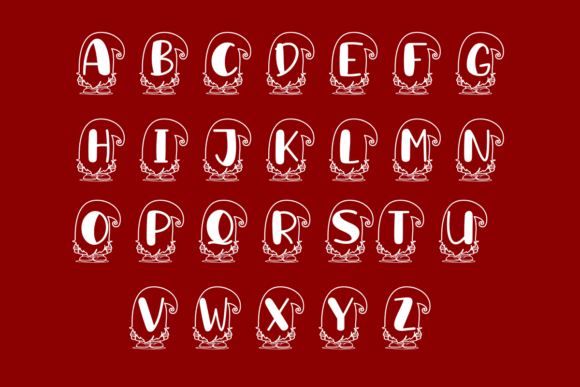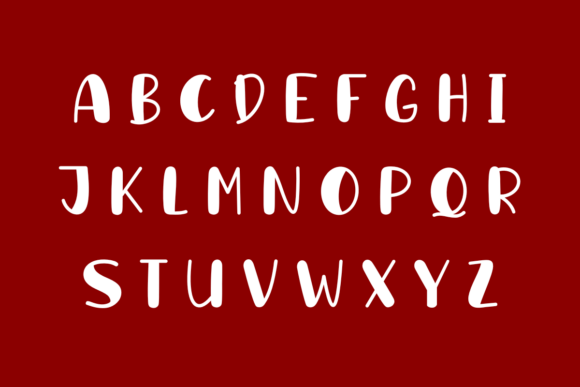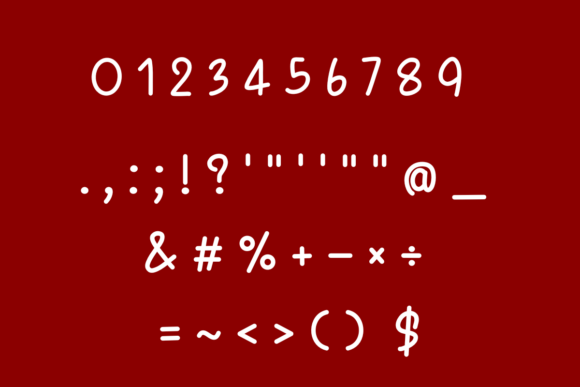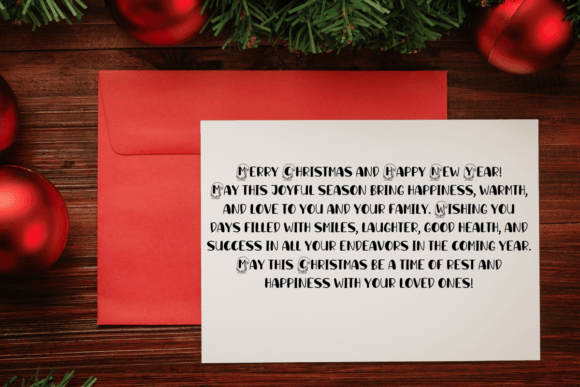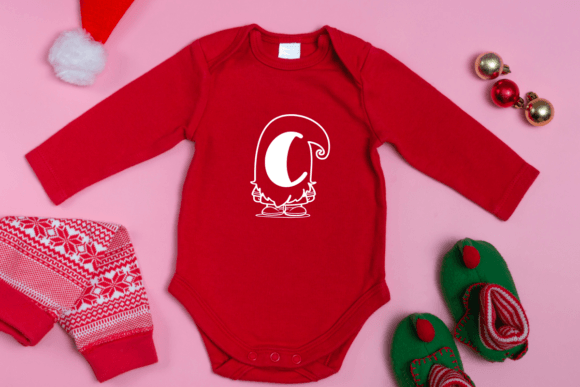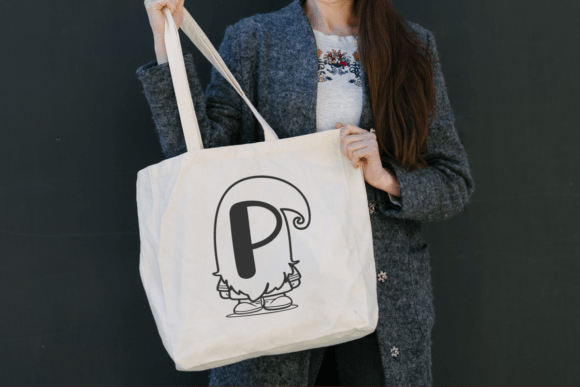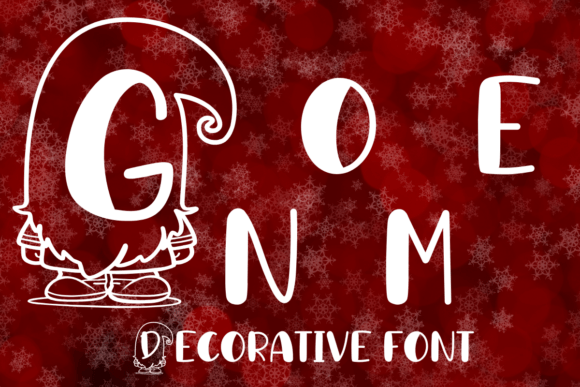
Bring the Charm of Christmas Gnomes into Your Designs with Gnome Christmas Font
Are you looking for a unique and playful way to add some holiday cheer to your designs? Look no further than the Gnome Christmas Decorative Font! This delightful font is perfect for designers and crafters who want to bring the magic of Christmas gnomes into their projects. Each letter is uniquely styled within a whimsical gnome figure, complete with a festive hat and jolly posture, adding a playful holiday spirit to your text.
What Makes Gnome Christmas Font So Special?
The Gnome Christmas Font is a one-of-a-kind font that combines the joy of the season with a touch of Nordic folklore. The font features intricately designed letters, each showcasing a charming gnome character. The gnomes are depicted with bright, festive hats and jolly postures, exuding a sense of warmth and friendliness. Whether you’re creating Christmas cards, holiday invitations, gift tags, or seasonal posters, this font is sure to add a touch of whimsy and fun to your designs.
The Gnome Christmas Font is versatile and can be used for a wide range of projects, including:
- Christmas cards: Add a personal touch to your holiday cards with this unique font.
- Holiday invitations: Invite friends and family to join in the festive fun with custom invitations featuring the Gnome Christmas Font.
- Gift tags: Add a playful touch to your gifts with custom tags featuring this delightful font.
- Seasonal posters: Create eye-catching posters that showcase the magic of Christmas gnomes.
- Children’s storybooks: Bring the whimsy of Christmas gnomes to life in your children’s storybooks with this charming font.
Why Choose Gnome Christmas Font?
There are many reasons why designers and crafters will love the Gnome Christmas Font:
- Unique and playful design: Each letter is uniquely styled within a whimsical gnome figure, adding a playful holiday spirit to your text.
- High-quality design: The font features high-quality, intricate designs that are sure to impress.
- Versatile: The font can be used for a wide range of projects, from Christmas cards to children’s storybooks.
Tips for Using Gnome Christmas Font
Here are a few tips for using the Gnome Christmas Font in your designs:
- Experiment with colors: Try pairing the font with different colors to create a unique and festive look.
- Mix and match: Combine the Gnome Christmas Font with other fonts to create a unique and eye-catching design.
- Don’t be afraid to get creative: The Gnome Christmas Font is perfect for designers and crafters who want to add a touch of whimsy to their projects.
If you’re looking for a unique and playful way to add some holiday cheer to your designs, the Gnome Christmas Font is the perfect choice. With its whimsical gnome characters, festive hats, and jolly postures, this font is sure to bring the magic of Christmas gnomes into your projects. Whether you’re a designer or crafter, this font is perfect for anyone who wants to add a touch of Nordic folklore and holiday spirit to their designs. So why wait? Download the Gnome Christmas Font today and start creating your own festive and fun designs!